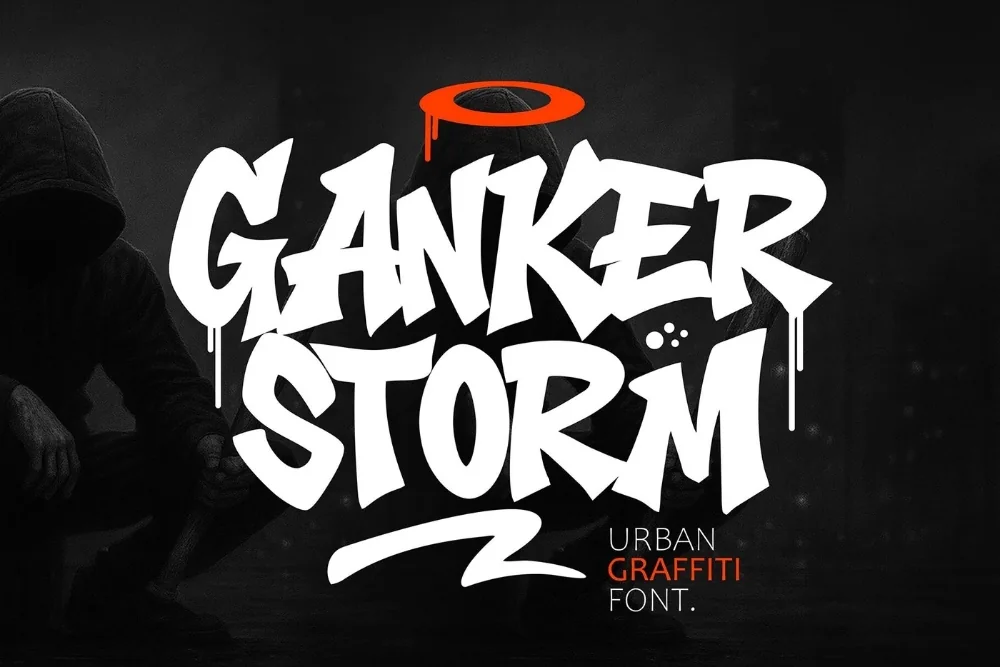
Storm Chaser Graffiti Font
There is no shortage of options when you search for a graffiti display font, so here is precisely what makes this one different. Sharp diagonals and long trailing exits that suggest speed and weather. Dramatic without being hard to read.
Letters lean forward consistently and finish in extended tails that sweep beneath the following character. Verticals are cut at a steep angle, adding to the sense of forward motion.
Fits sports graphics, action-film style posters, gaming overlays, and energetic event branding.
Give it room. Crowding this kind of alphabet against the edge of a layout wastes the shapes, and a generous margin does more for the design than any extra effect.